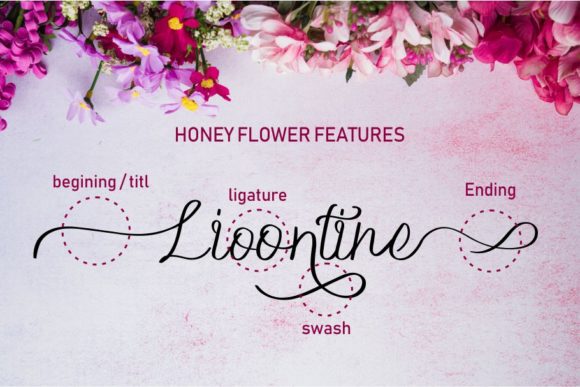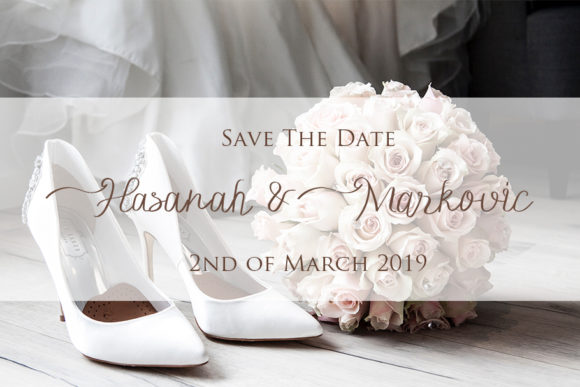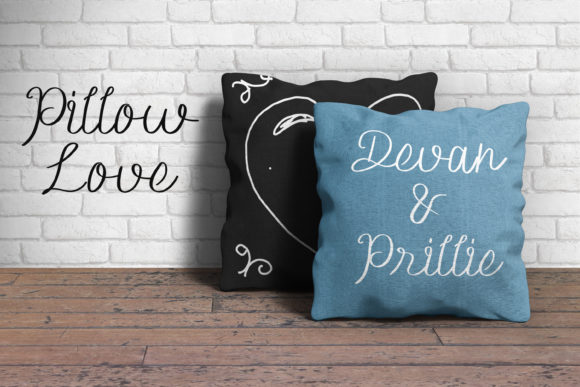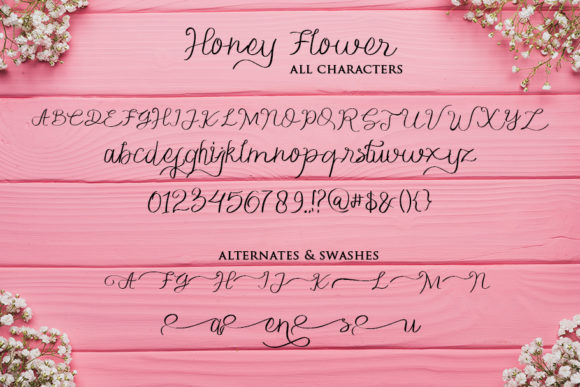
Introduction to Honey Flower Font
As a designer, have you ever been working on a creative project and wished you had the perfect font to bring your vision to life? I’m sure you have. We’ve all been there, scrolling through font libraries, searching for that one font that captures the essence of our design. Today, I’m excited to introduce you to a game-changing design resource – the Honey Flower Font. This stunning hand-illustrated typeface is a must-have for any designer looking to add a touch of elegance and playfulness to their work.
The Honey Flower Font is a high-quality design resource that includes amazing swashes, making it perfect for designers who want to add a natural feel to their designs. With its transparent background, this font is versatile and can be used in a variety of creative projects, from wedding invitations to branding materials. And the best part? It’s available for free download, making it a valuable asset for designers of all levels.
Key Features of Honey Flower Font
- High-quality design resource for creative projects, ideal for digital art and graphic design
- Transparent background, allowing for easy layering and composition in design projects
- Unique, hand-drawn style with intricate details and floral patterns, perfect for adding a touch of elegance to designs
Honest Review: Honey Flower Font
As a designer, I’m always on the lookout for high-quality design resources that can elevate my creative projects. Recently, I stumbled upon the Honey Flower Font, and I’m excited to share my honest review with you.
- ✨ The font is incredibly detailed and has a beautiful, delicate touch to it.
- ✨ It’s perfect for any project that requires a touch of whimsy and elegance.
- ✨ The transparent background makes it easy to use in various design contexts.
- ⚠️ The font is quite ornate, which can make it difficult to read in certain contexts.
- ⚠️ It may not be the best choice for projects that require a bold, attention-grabbing font.
Overall, I’m impressed with the Honey Flower Font. While it may have some limitations, its beauty and elegance make it a valuable addition to any designer’s toolkit. If you’re looking for a high-quality design resource for your next creative project, I’d definitely recommend giving it a try.
The Honey Flower Font is ideal for various creative projects, such as wedding invitations, baby shower cards, and floral-themed designs. Its elegant and delicate design makes it perfect for adding a touch of sophistication to your designs.
To get the most out of the Honey Flower Font, use it in combination with a transparent background to create stunning designs. You can also experiment with different font sizes and colors to achieve the desired effect.
Alternatives to Honey Flower Font
Alex Brush Font is a beautiful, handwritten font perfect for creative projects that require a touch of elegance. It features a high-quality design with a transparent background, making it ideal for use on any background. This font is great for designers looking for a unique and sophisticated look.
Comparison to Honey Flower Font: While both fonts have a floral theme, Alex Brush Font has a more refined and delicate look, making it suitable for more formal designs. Honey Flower Font, on the other hand, has a bolder and more playful feel.